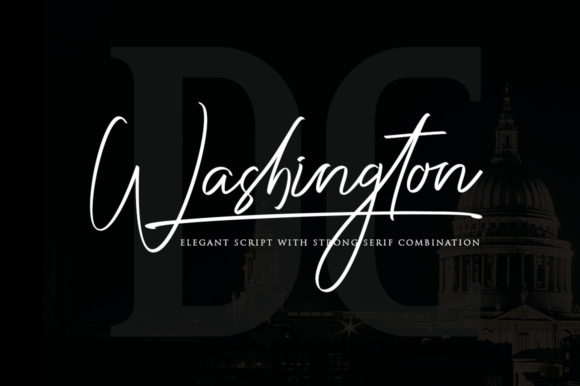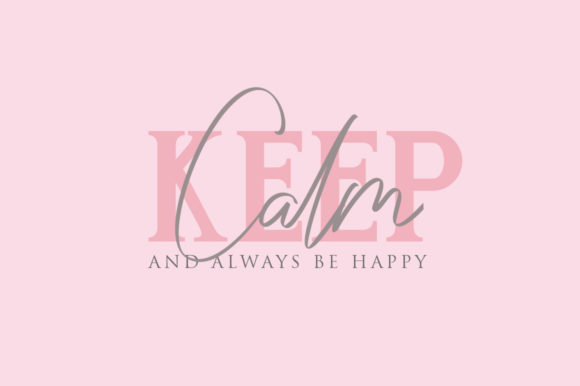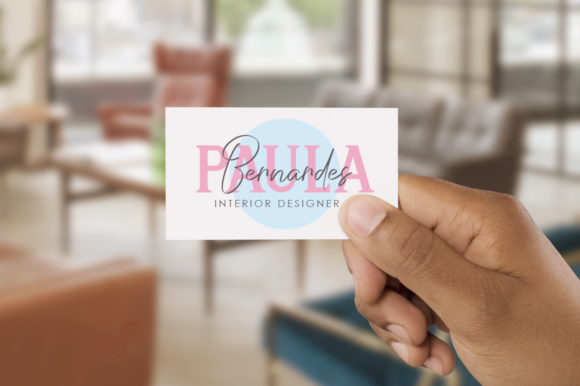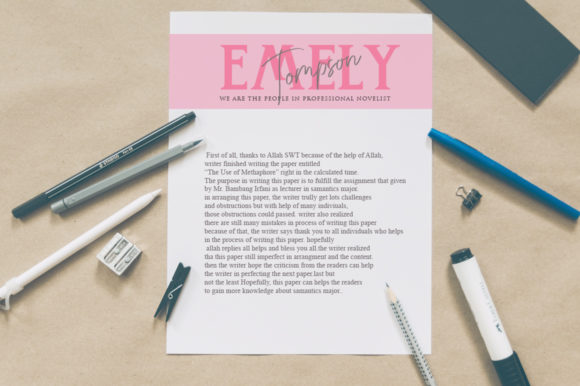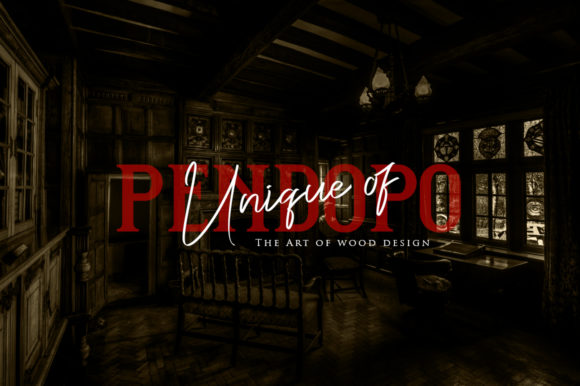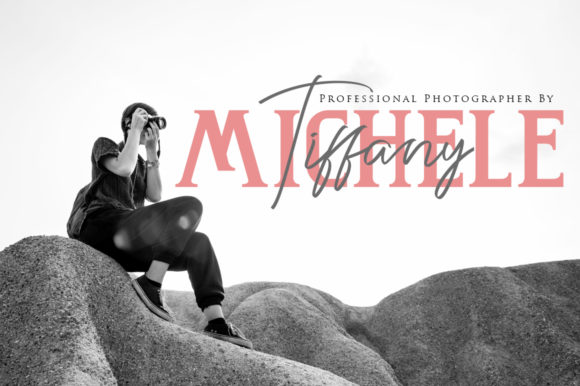
Washington Duo Font
About Washington Duo Font
The Washington is an amazing font duo. It comes with an elegant script version and a striking serif version which can be combined perfectly.
It’s perfect for greeting cards, branding materials, business cards, quotes, posters, and much more!